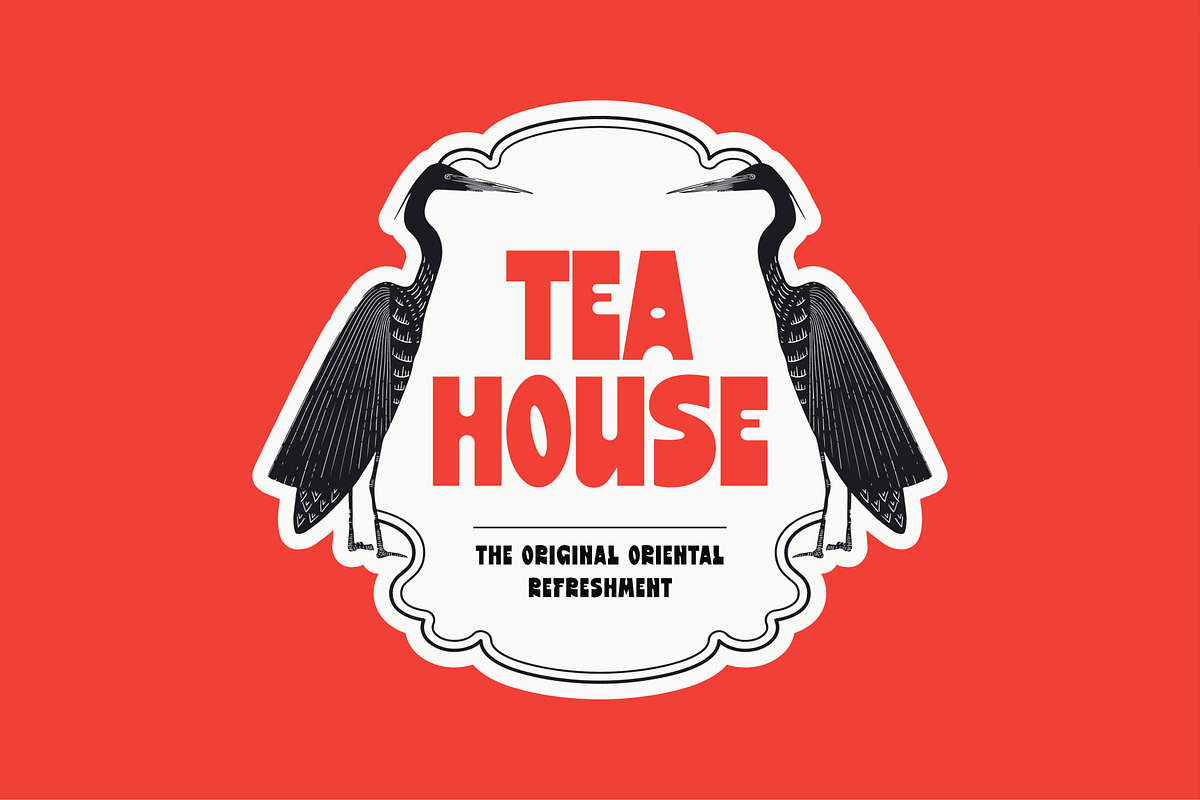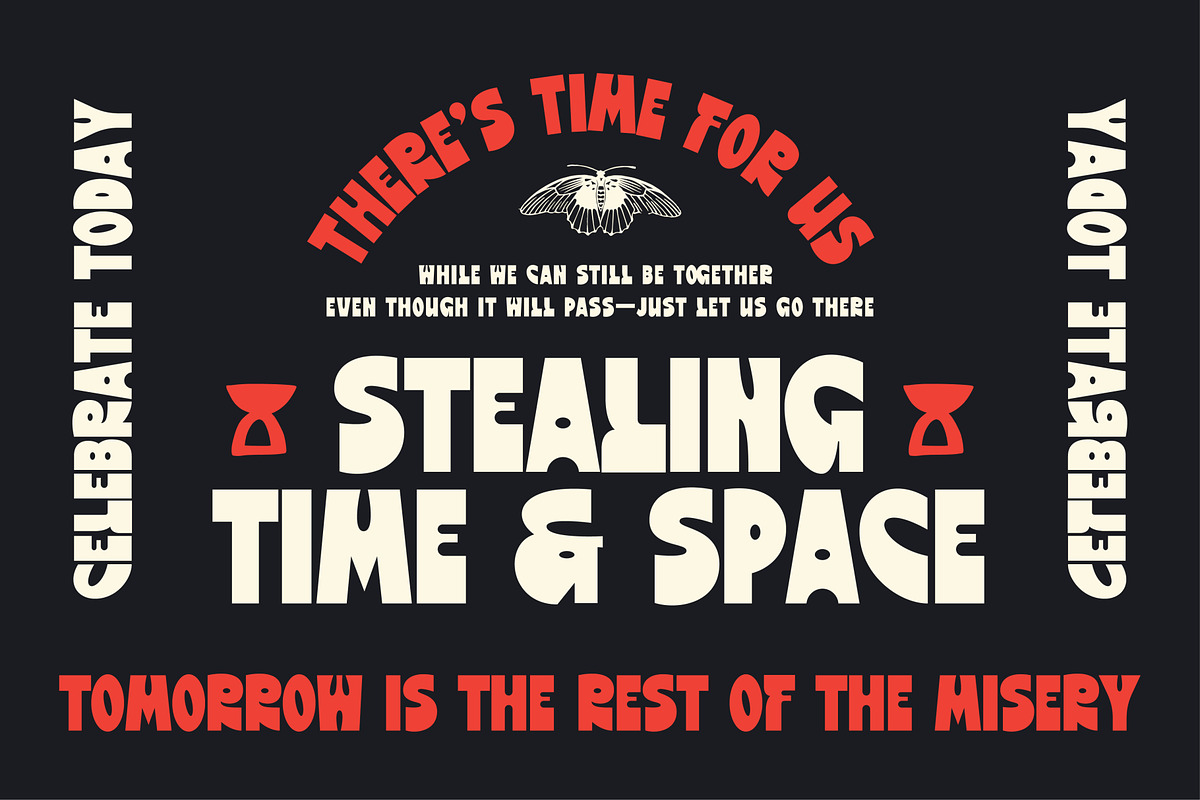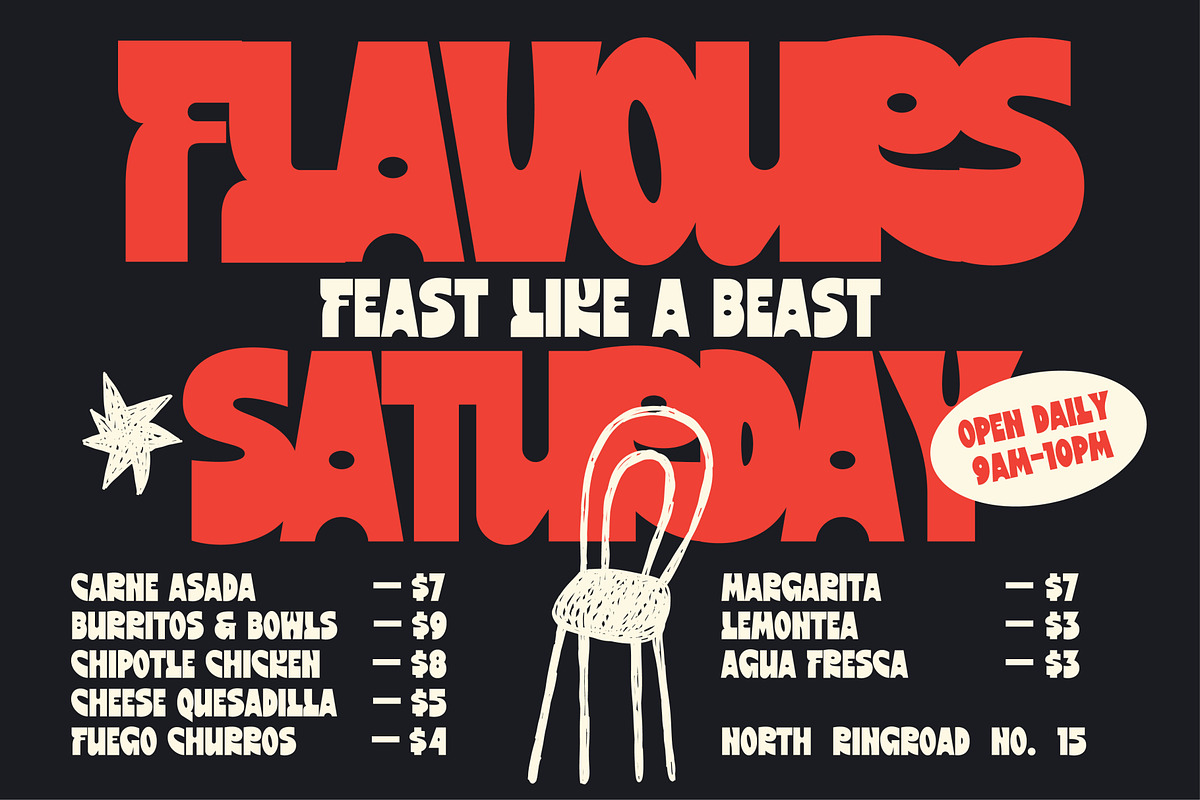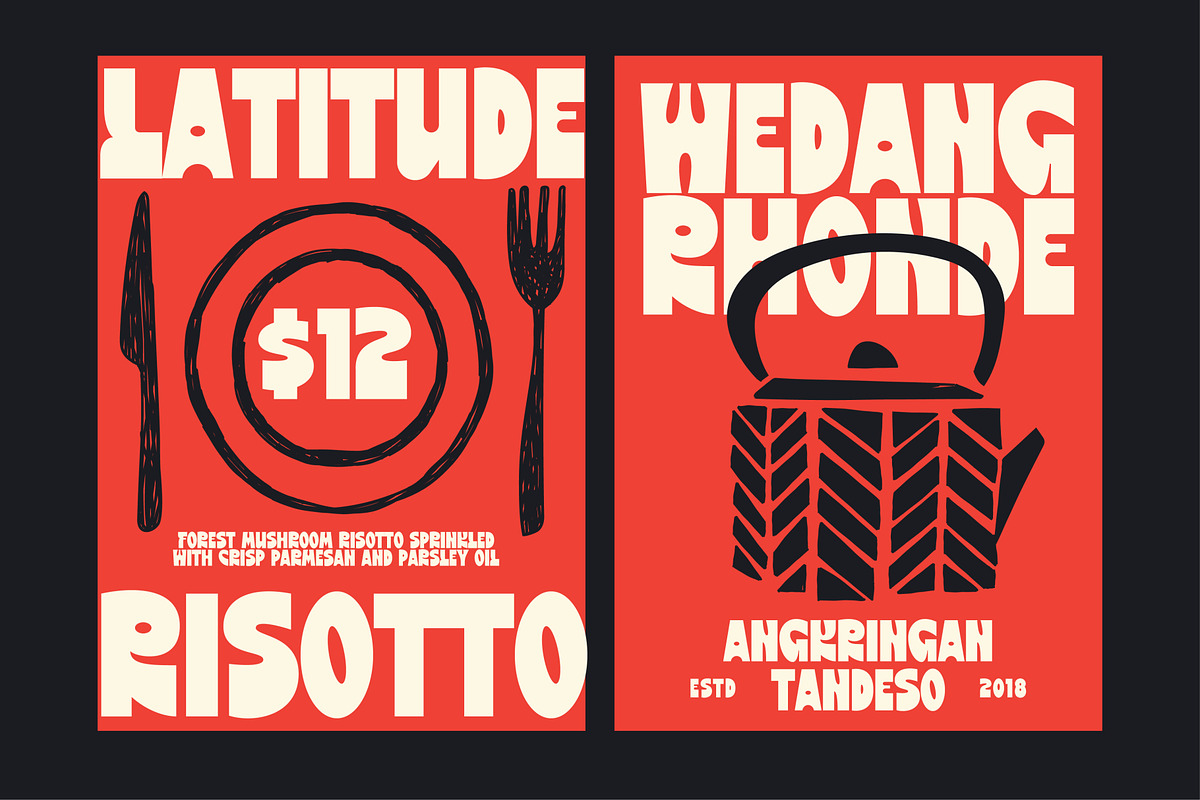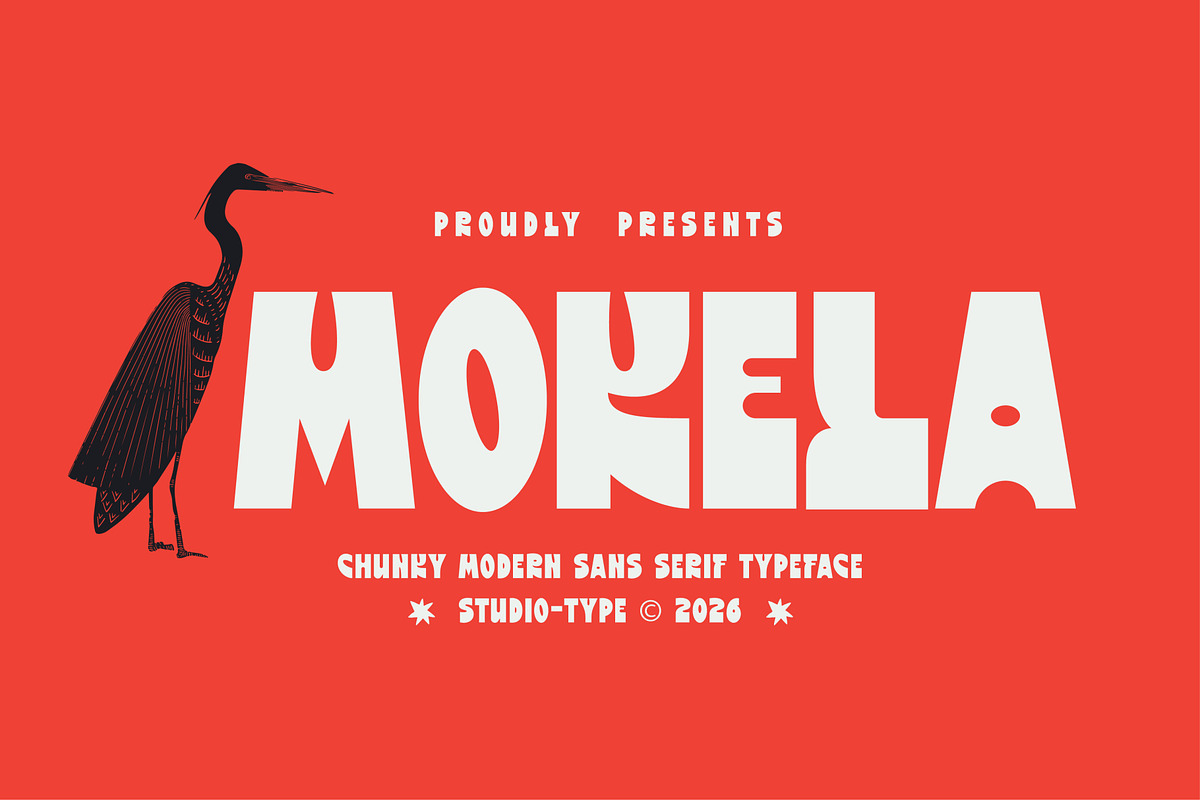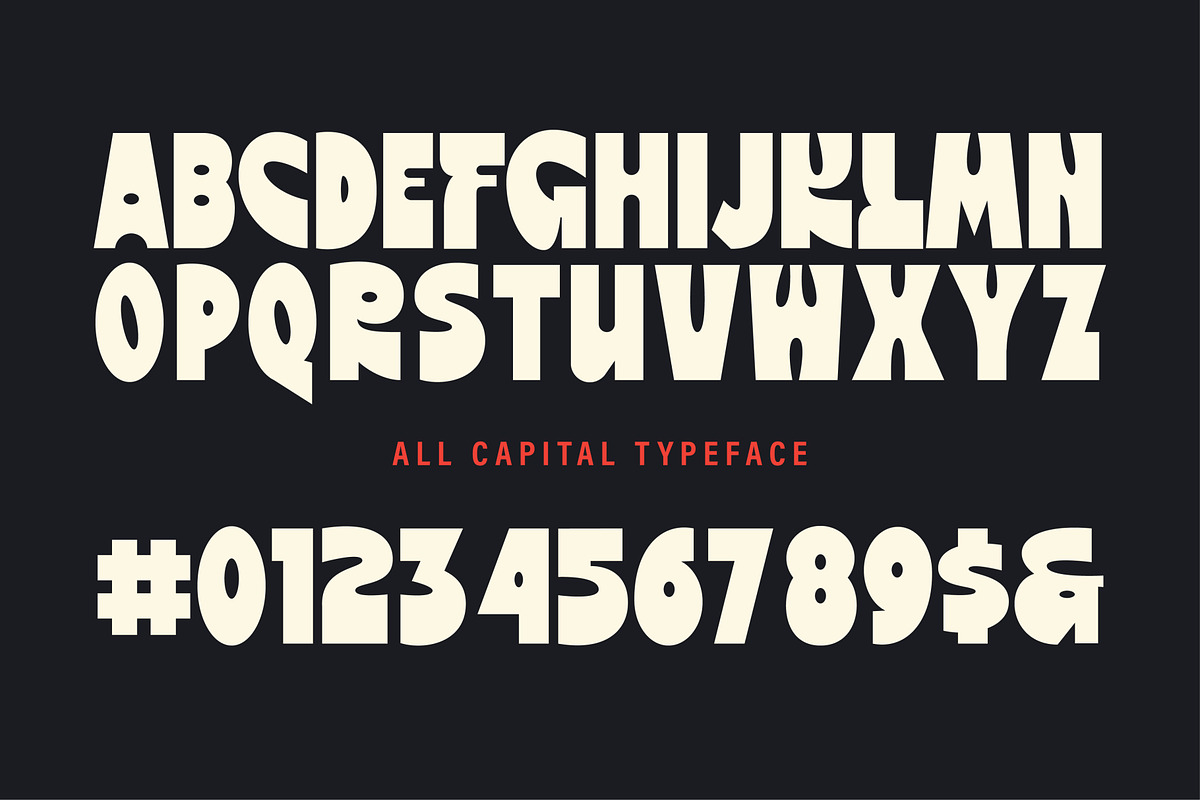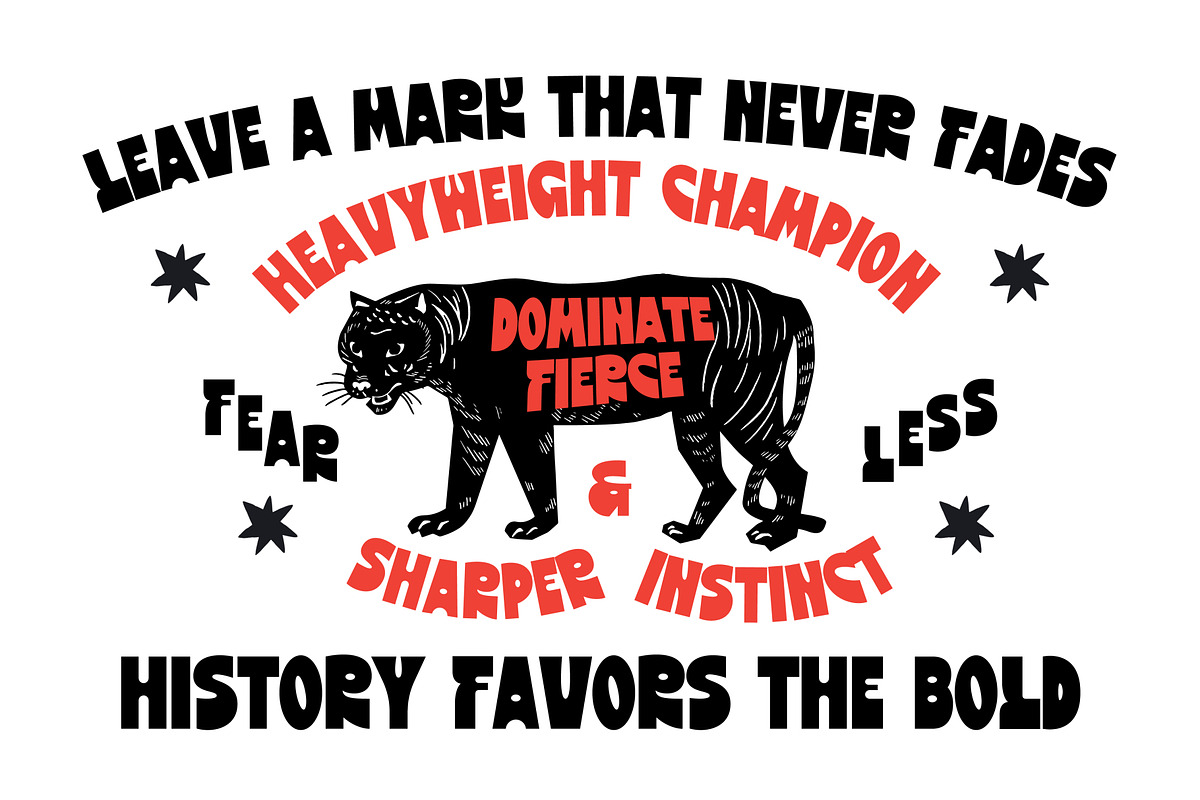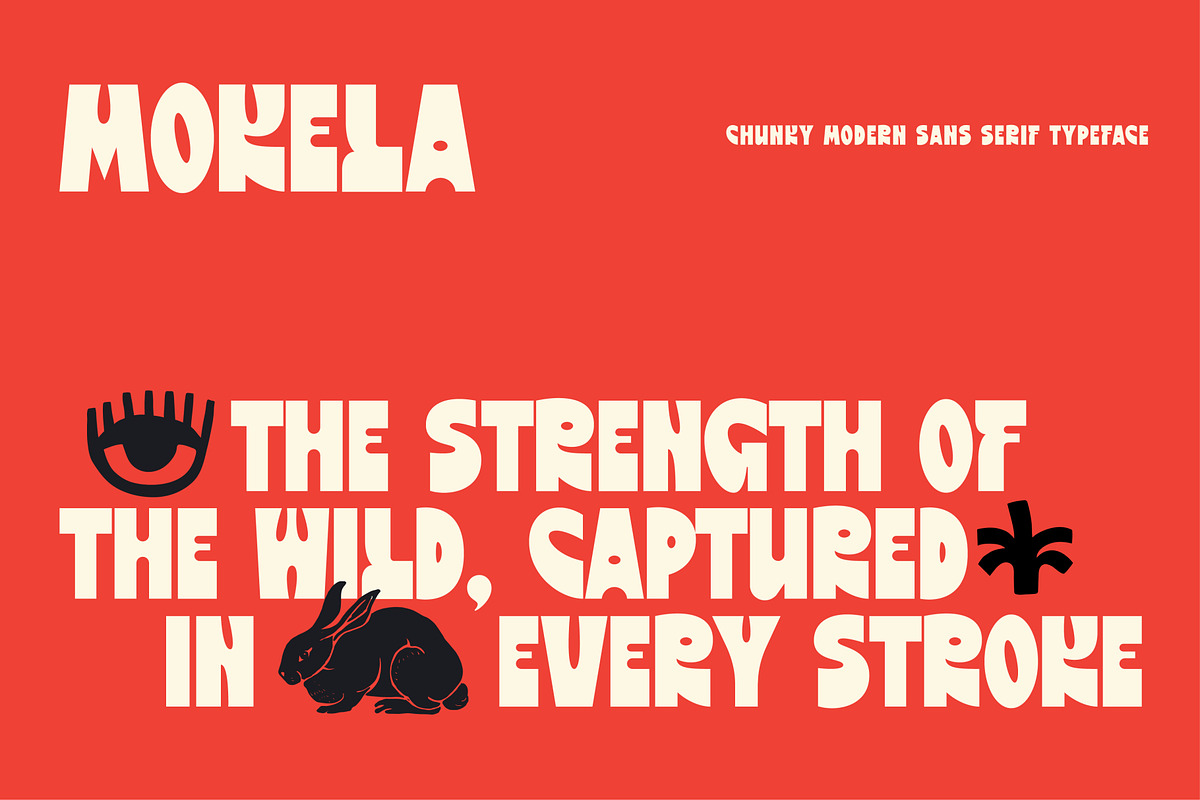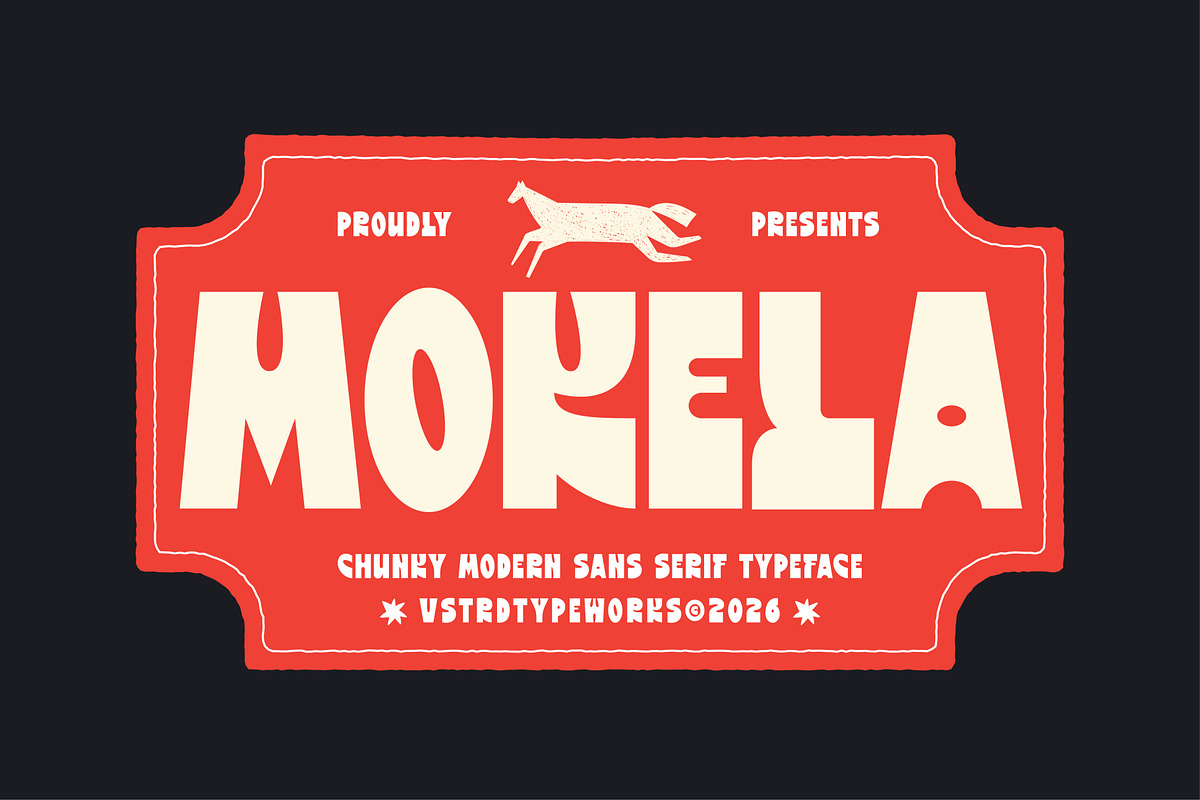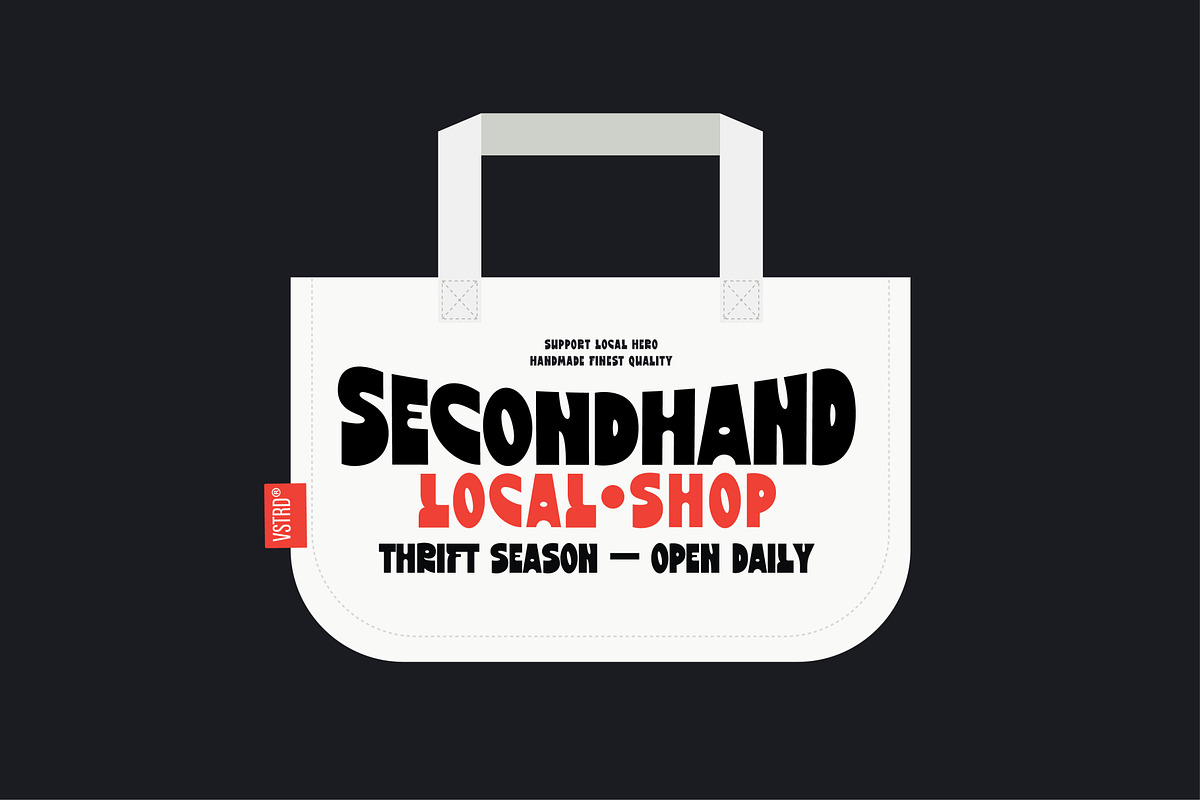
Mokela - Chunky Sans Serif
Make a statement that can’t be ignored with Mokela – Chunky Sans Serif. Designed with bold curves and a playful edge, Mokela brings power and personality into every letter. Its strong, chunky form makes it perfect for eye-catching headlines, standout branding, and expressive packaging that demands attention.
Whether you're crafting vintage-inspired posters or modern visual identities, Mokela delivers a confident voice with a touch of fun. Loud, fearless, and full of character. This is the typeface that leaves a mark that never fades.